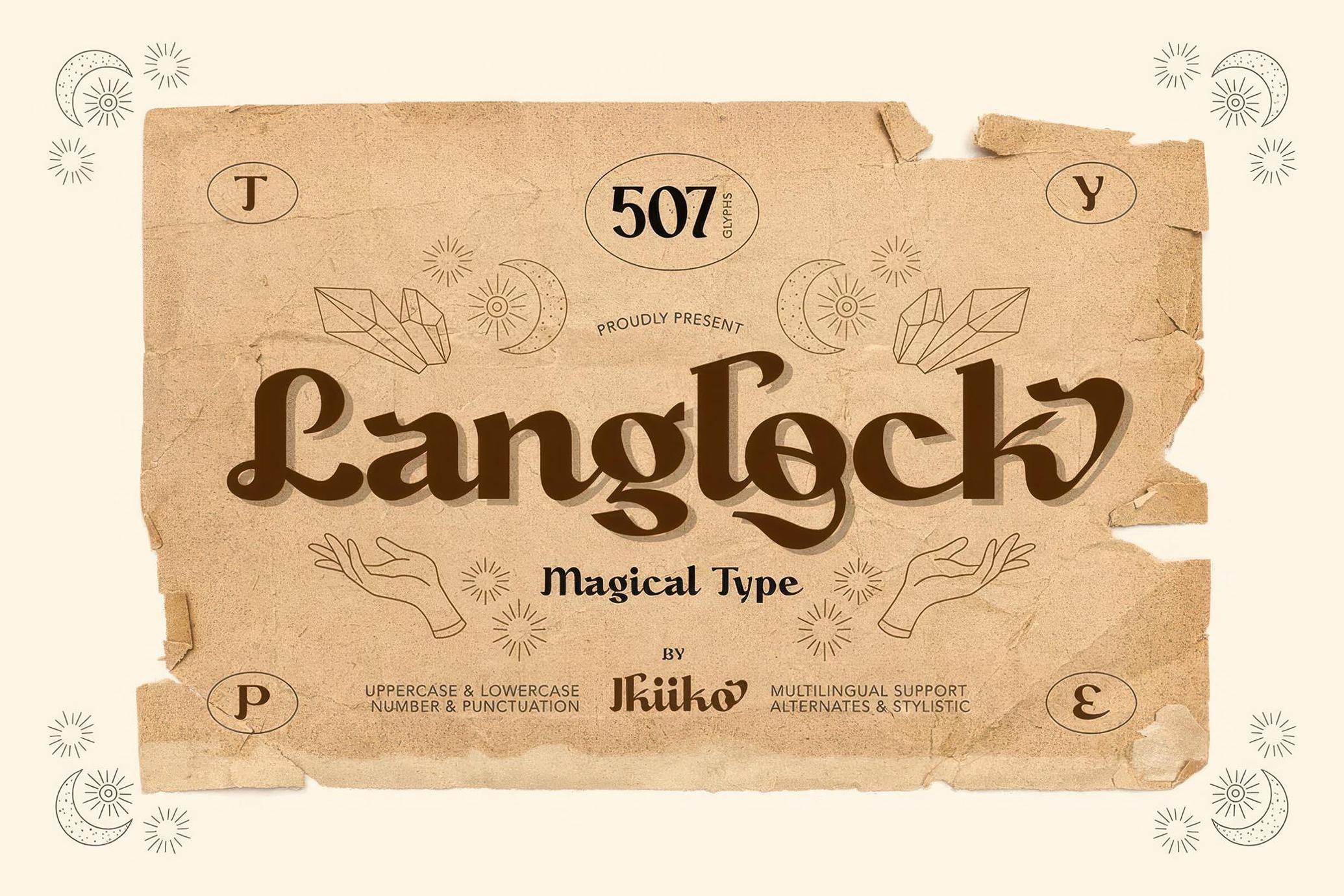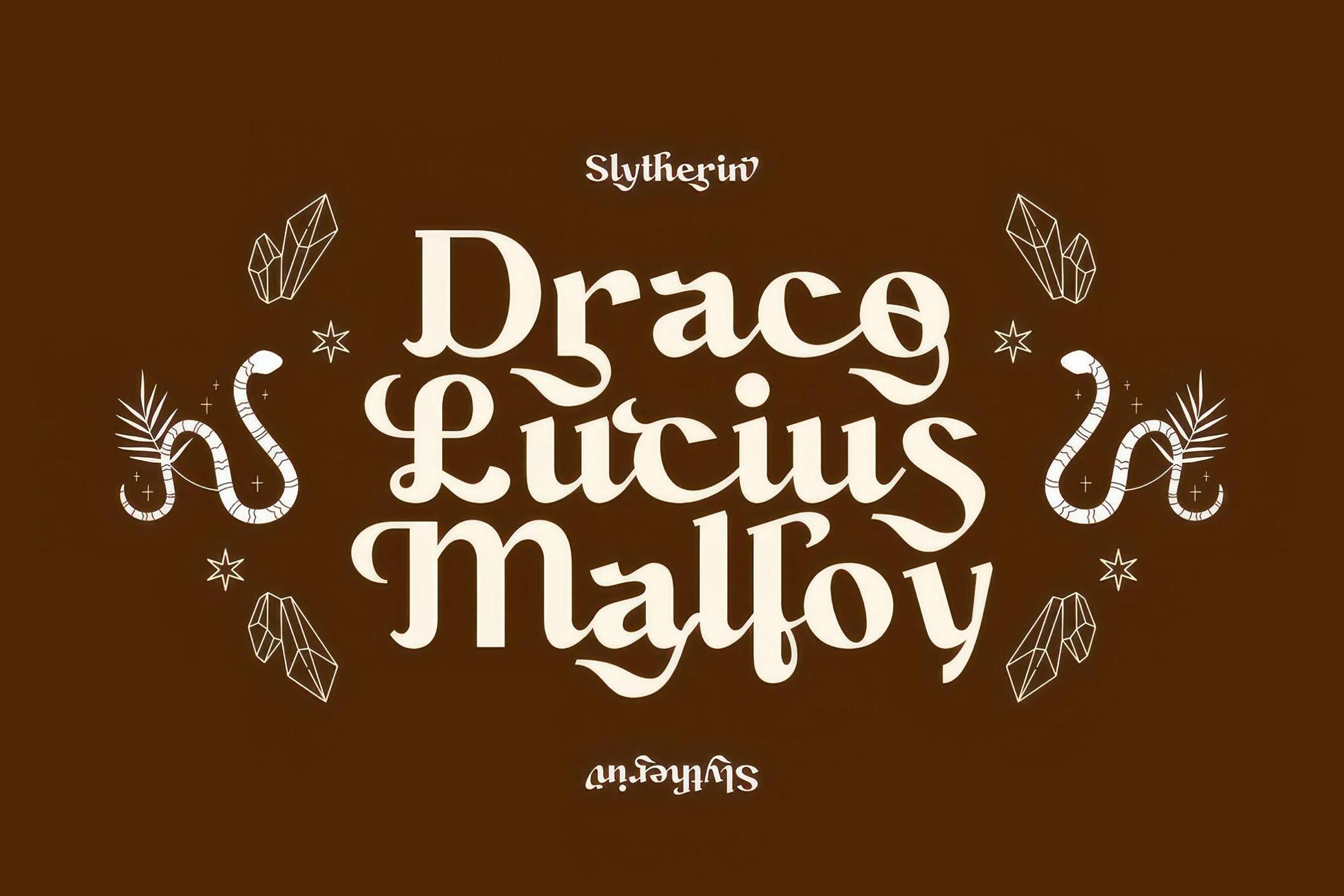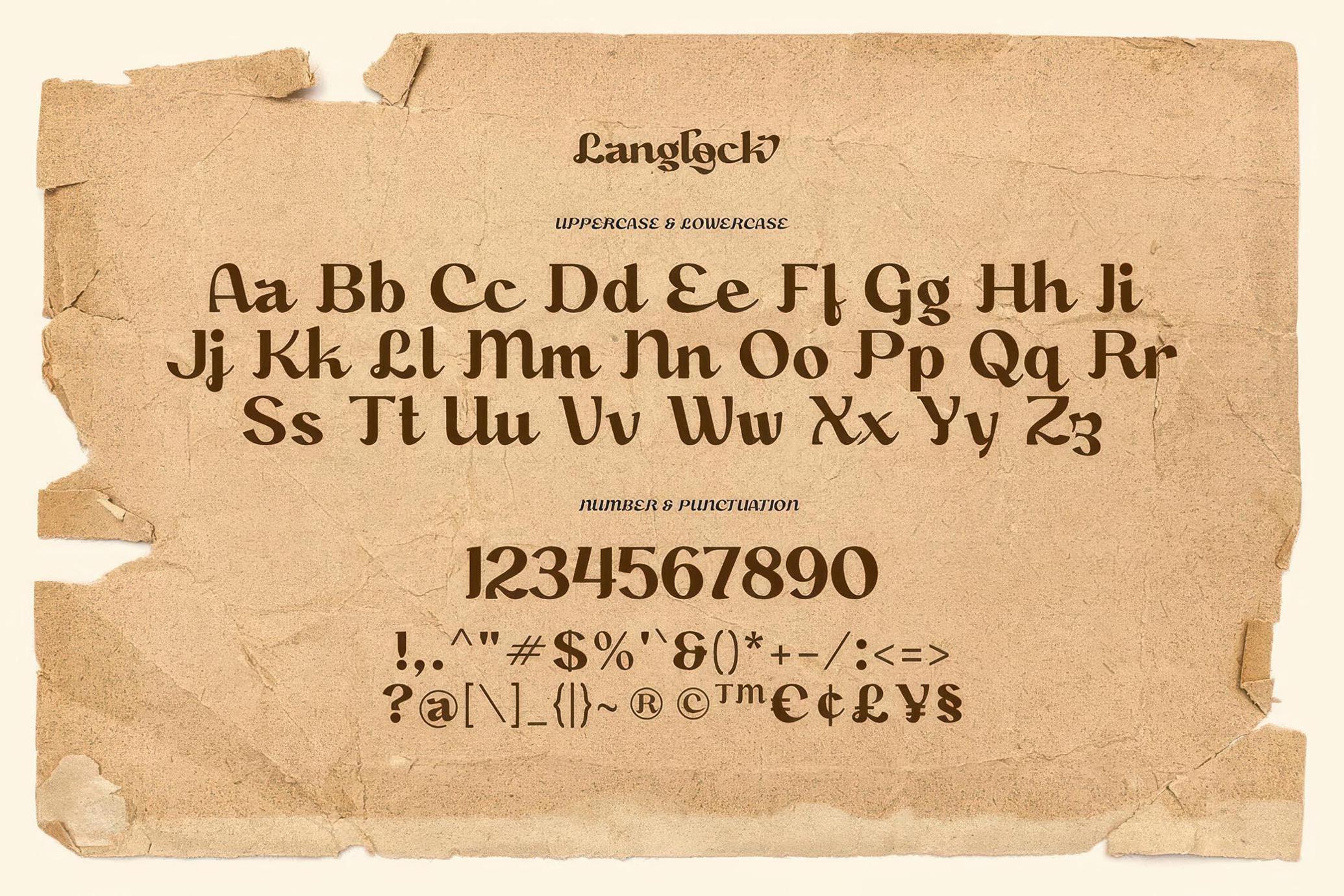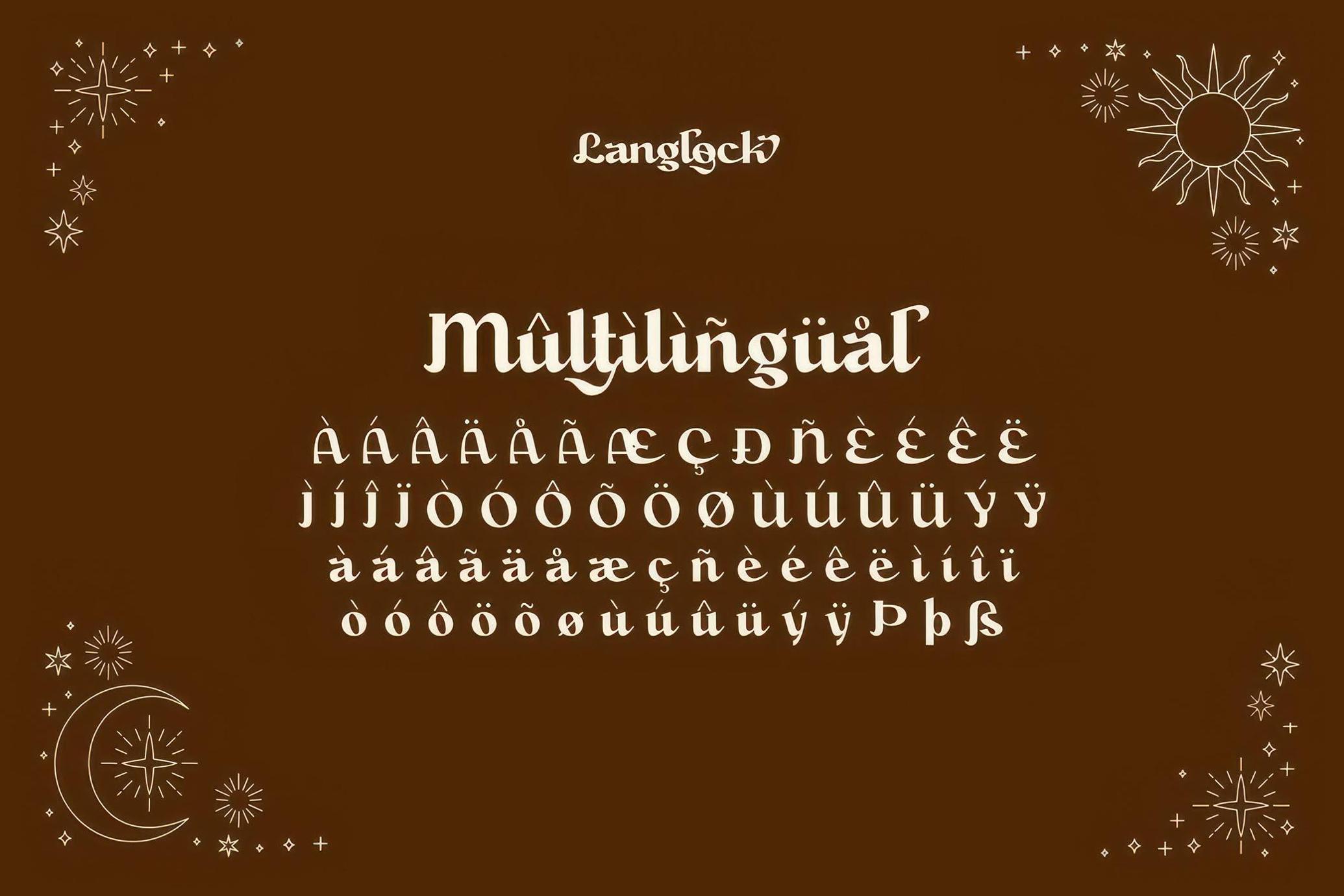
Langlock - Magical Font
Langlock
Langlock is a serif typeface inspired by classic fairy tales with wizard era fonts. This typeface is perfect for an classic or vintage book layout, fairy tale, magical stuff, flyer design, poster design, inspirational quotes, or simply as a stylish text overlay to any background image.
- Number & Punctuation
- Alternates & Stylistic